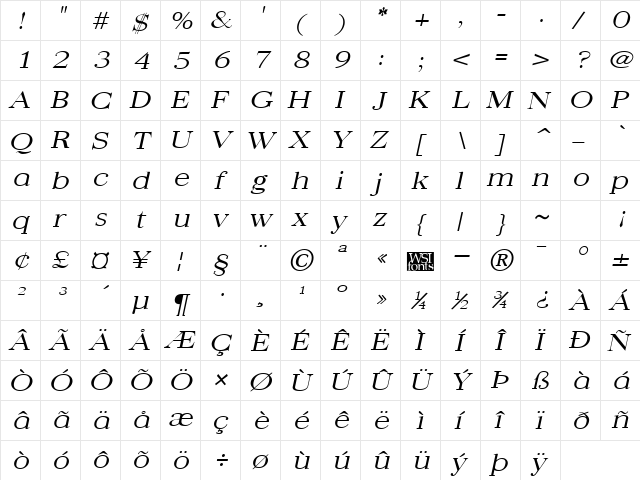
QuantasBroadLight Italic Font Preview
Design Context for QuantasBroadLight Typeface
QuantasBroadLight offers clean, dependable letterforms without strong stylistic allegiance, making it a practical choice for designers who need flexibility. The slanted form adds forward momentum and visual energy. Its slender proportions lend an understated elegance to any composition.
Pro Tip: Try QuantasBroadLight for annotation and caption copy alongside an upright companion — the contrast in angle creates a dynamic but ordered typographic system.